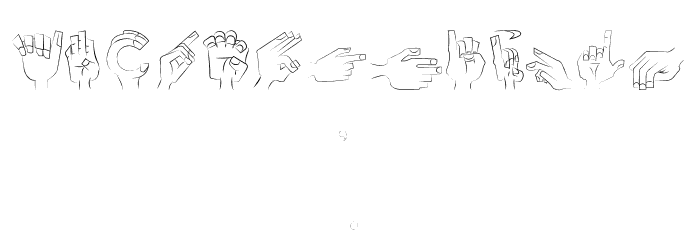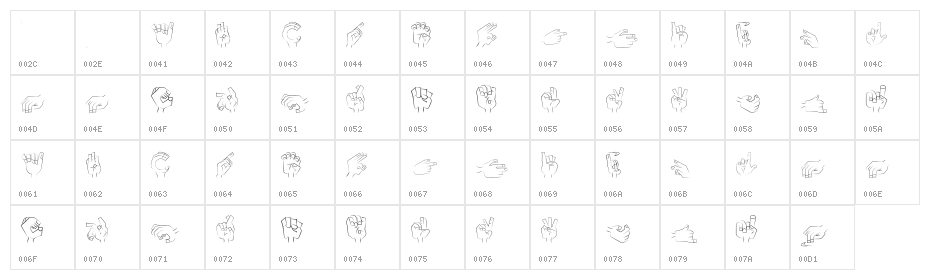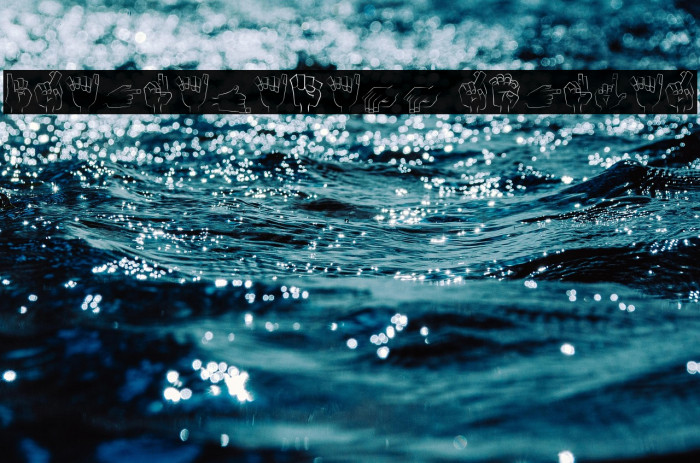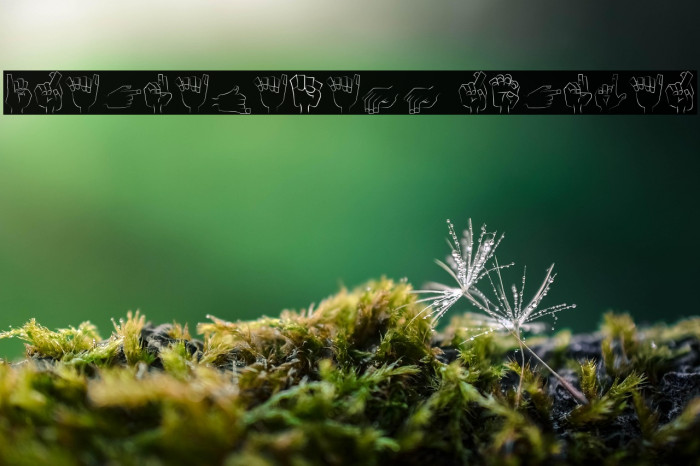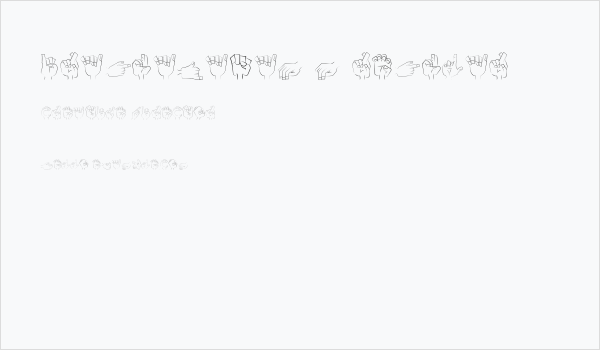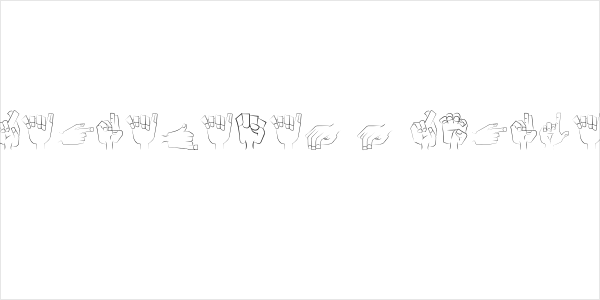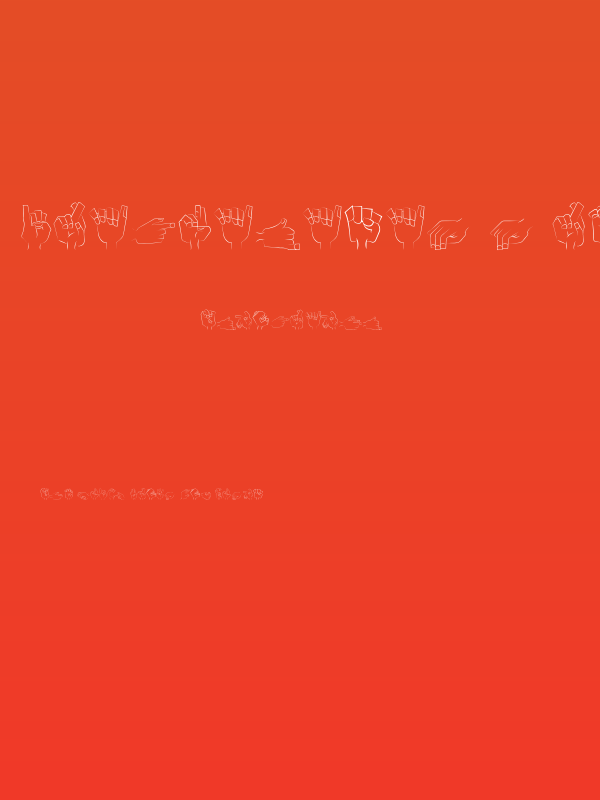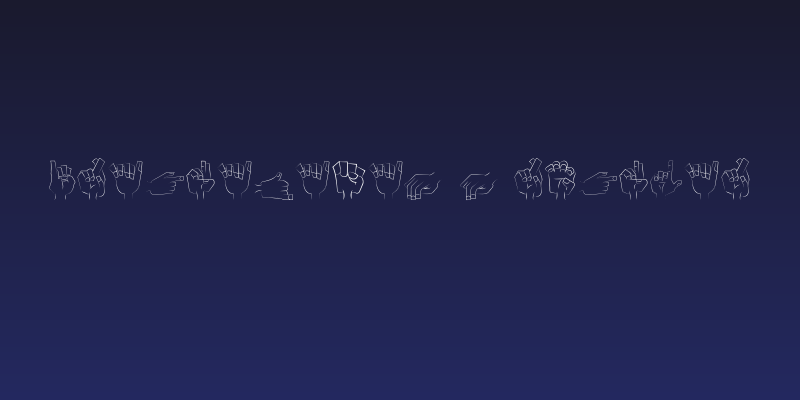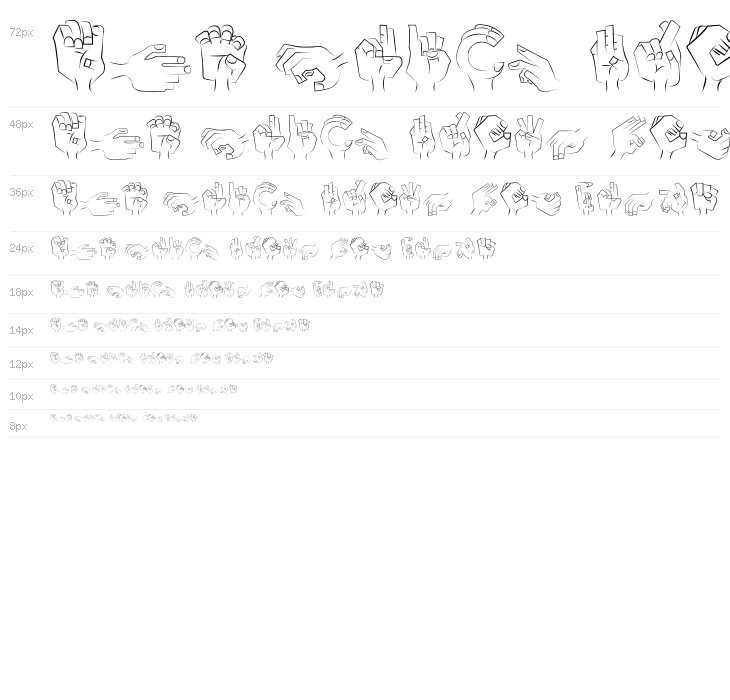
IraGuayasamín Regular Font
IraGuayasamín Regular Description
This unique font features hand-drawn illustrations of hands forming the letters of the alphabet and numbers. Each character is represented by a distinct hand gesture, capturing the essence of sign language. The design is intricate and detailed, with clear outlines that define each hand shape. The font is both artistic and functional, offering a creative way to convey messages through visual storytelling. It stands out with its illustrative style, making it ideal for projects that require a personal or human touch.
| Overall Style | Artistic |
| Use Case | Logos, Educational materials, Creative projects |
| Proposed Projects | Ideal for educational materials on sign language, creative posters, and artistic projects that emphasize communication and inclusivity. |